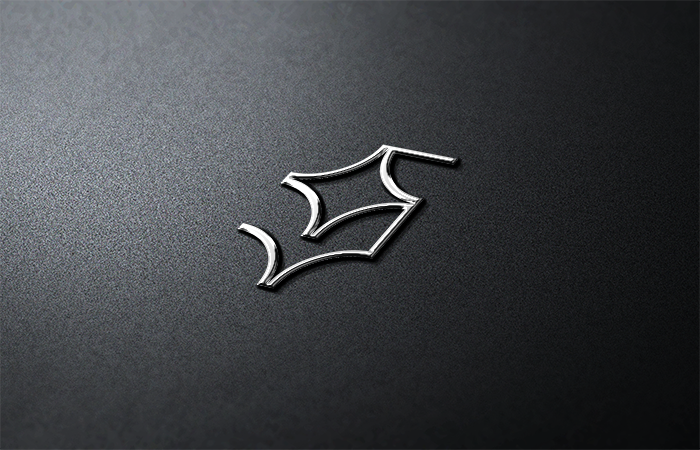
This is a very curious and alien-like use of arcs.
I must say that this font also reminds me of street graffiti typography.
Congratulations! FontStruct Staff have deemed your FontStruction worthy of special mention. “KD erutuF” is now a Top Pick.
This looks like the Brazilian graffiti/tagging style, Pixição